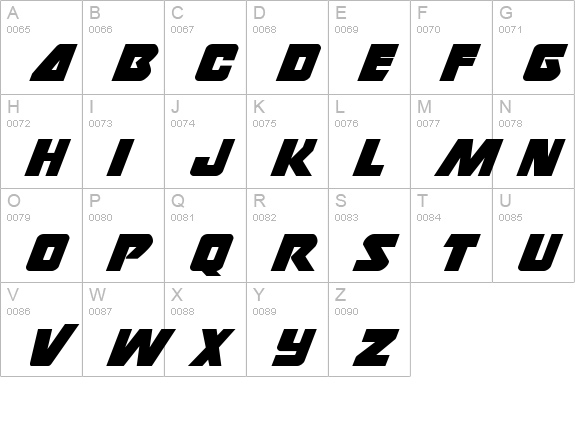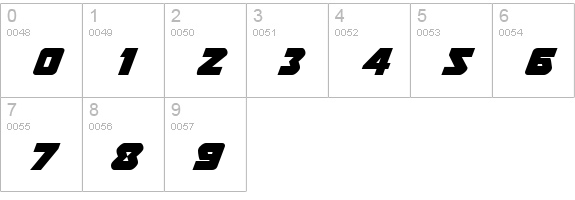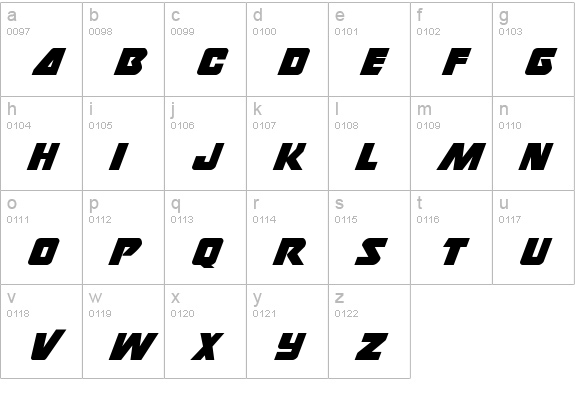
Thunderstrike Font Details
Thunderstrike is a donationware font in the Modern > Techno category, designed by Iconian. It has been downloaded 136 times and is available for Windows, Mac and Linux.
Thunderstrike font is a bold and powerful typeface that exudes energy and impact. With its sharp edges and strong lines, this font is perfect for making a statement in your designs. Whether you're creating posters, headlines, or logos, Thunderstrike will ensure that your message is loud and clear.